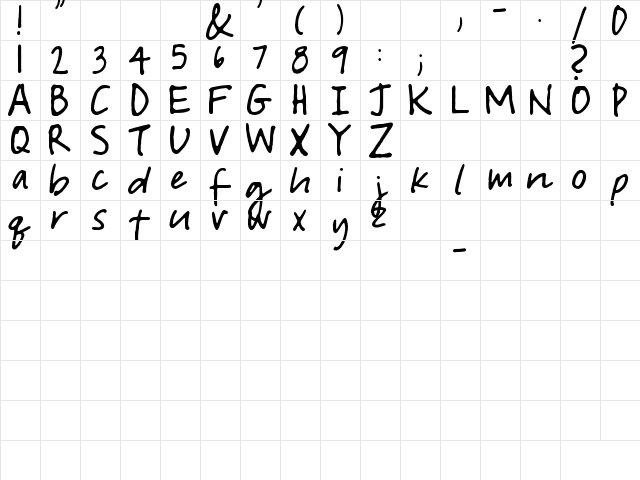
Courtney Dorkling Regular
Design Context for Courtney Dorkling Typeface
Courtney Dorkling is a composed and adaptable typeface that performs quietly and consistently across a wide range of design contexts.